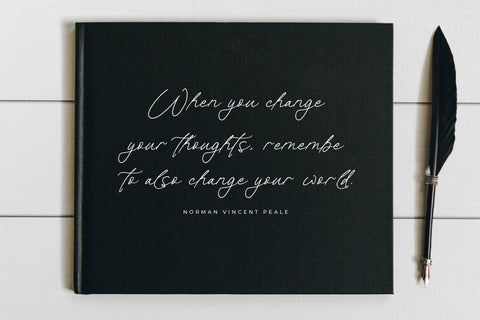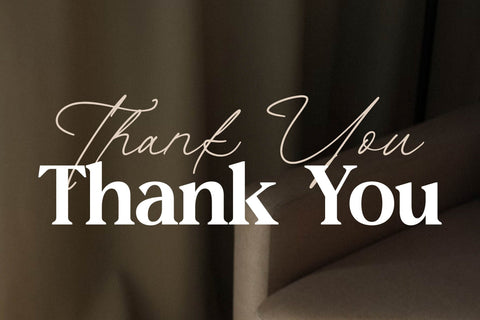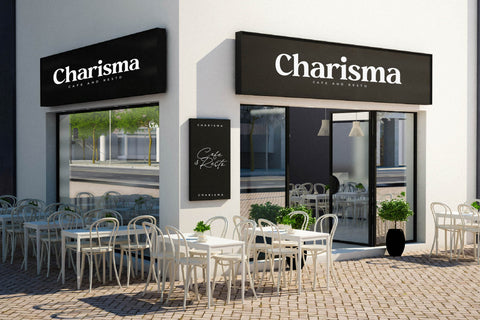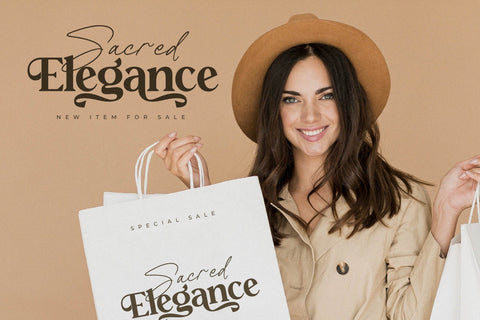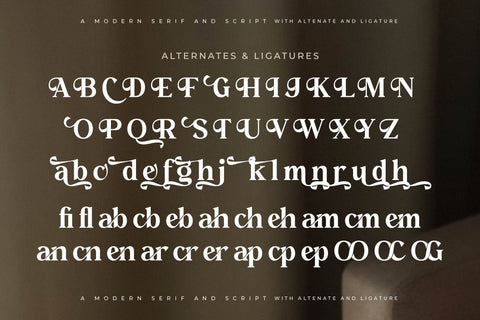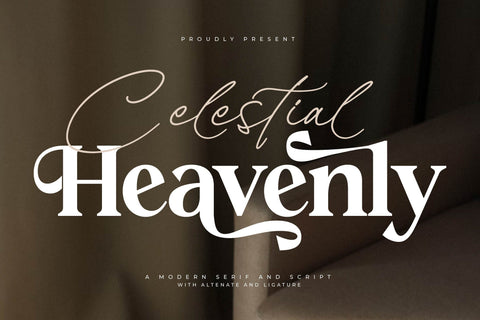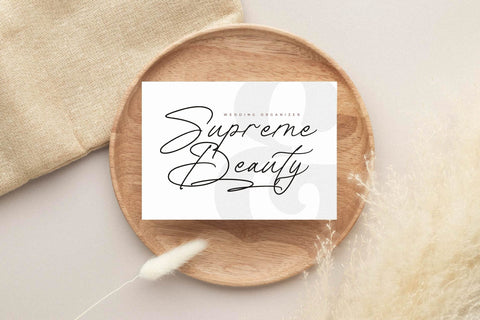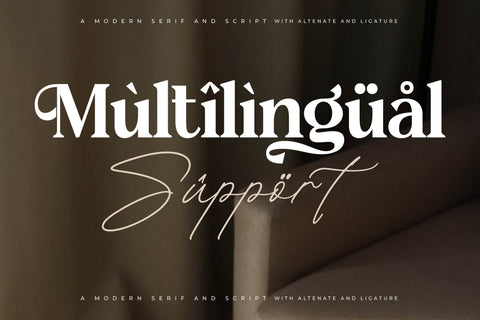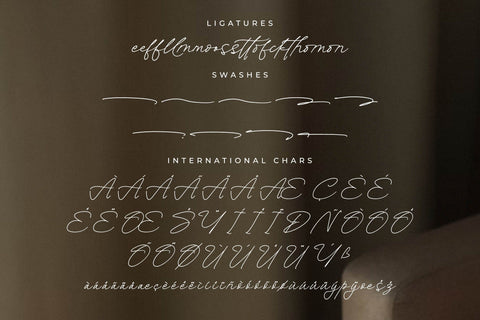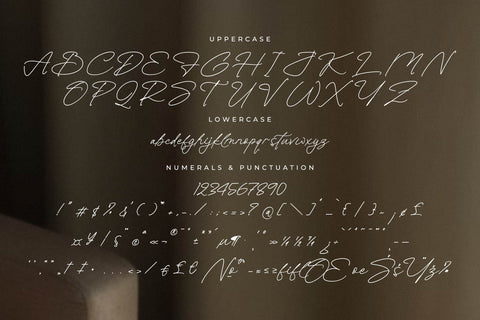
Celestial Heavenly Font Duo
Proudly present Celestial Heavenly Font Duo , created by Storytype,
A serif and script typeface that has own unique style & modern look.